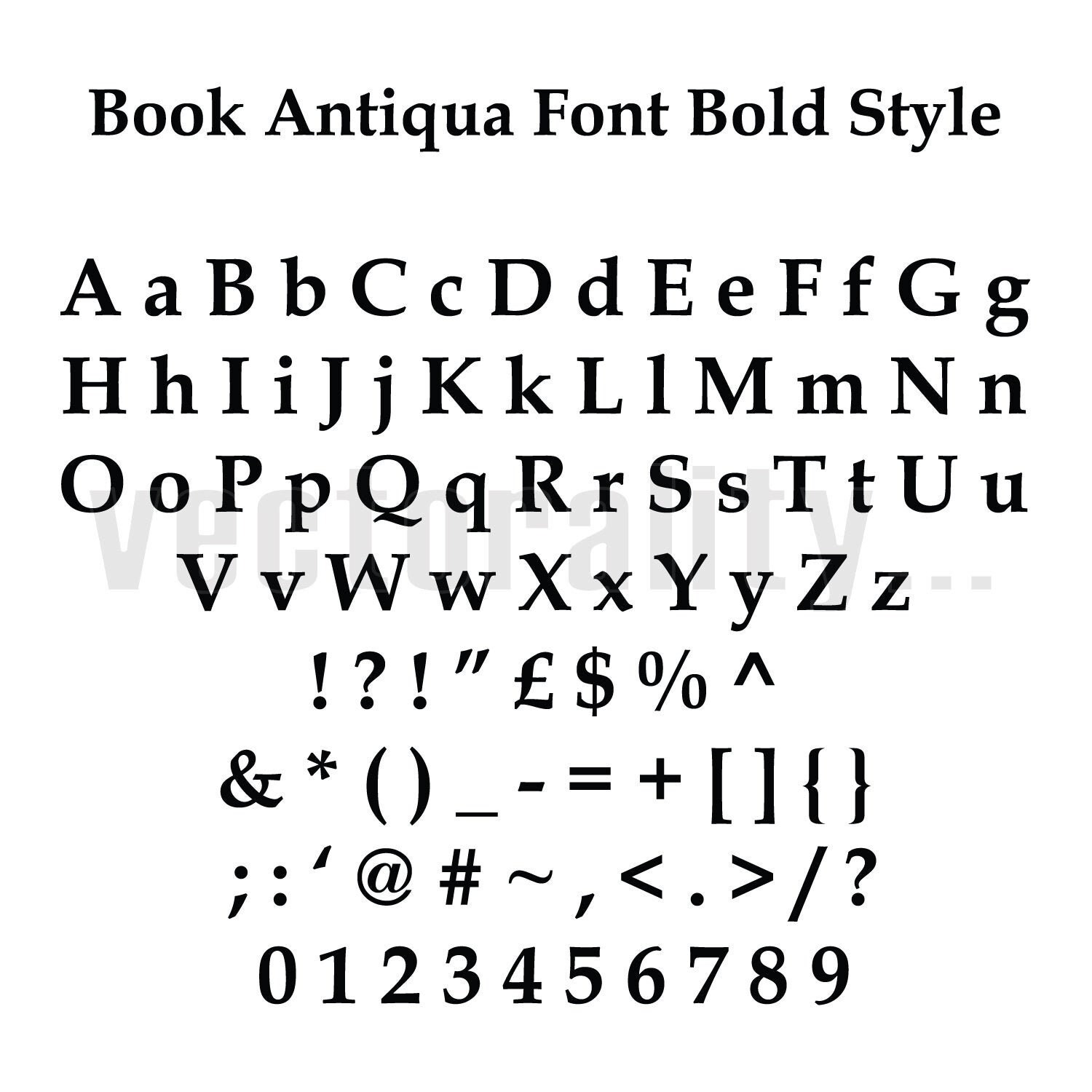
Regular, bold, bold italic, italic. Discover book antiqua fonts and download for free. Download book antiqua for free, view sample text, rating and more on fontsgeek.com. This font is inspired by palatino and has four variants: Font book antiqua, license and terms of use, symbols, categories, supported languages, download link. It has 4 weights and is licensed for personal use only. Download book antiqua font for free from actionfonts.com. Download 186,286 free fonts at ufonts.com. The elegance of a good font can make a great visual impact to the end user. Discover the free book antiqua bold font at free font download !
Book Antiqua Font download free Book Antiqua Font Download This font is inspired by palatino and has four variants: Download book antiqua for free, view sample text, rating and more on fontsgeek.com. Installable on pc, mac, linux, ios, and android platforms. Discover book antiqua fonts and download for free. Download book antiqua font for free from actionfonts.com. Download 186,286 free fonts at ufonts.com. It has 4 weights and is. Book Antiqua Font Download.
Book Antiqua Font Free Download Book Antiqua Font Download The elegance of a good font can make a great visual impact to the end user. Regular, bold, bold italic, italic. Download book antiqua for free, view sample text, rating and more on fontsgeek.com. It has 4 weights and is licensed for personal use only. Download book antiqua regulartruetype font. Installable on pc, mac, linux, ios, and android platforms. Download. Book Antiqua Font Download.
Book Antiqua Font Free Fonts Vault Book Antiqua Font Download It has 4 weights and is licensed for personal use only. Download book antiqua font for free from actionfonts.com. The elegance of a good font can make a great visual impact to the end user. Discover book antiqua fonts and download for free. Font book antiqua, license and terms of use, symbols, categories, supported languages, download link. This font is. Book Antiqua Font Download.
Book Antiqua Font Free Download Book Antiqua Font Download Discover book antiqua fonts and download for free. Installable on pc, mac, linux, ios, and android platforms. Regular, bold, bold italic, italic. Download book antiqua font for free from actionfonts.com. Download book antiqua regulartruetype font. Font book antiqua, license and terms of use, symbols, categories, supported languages, download link. This font is inspired by palatino and has four variants: Discover. Book Antiqua Font Download.